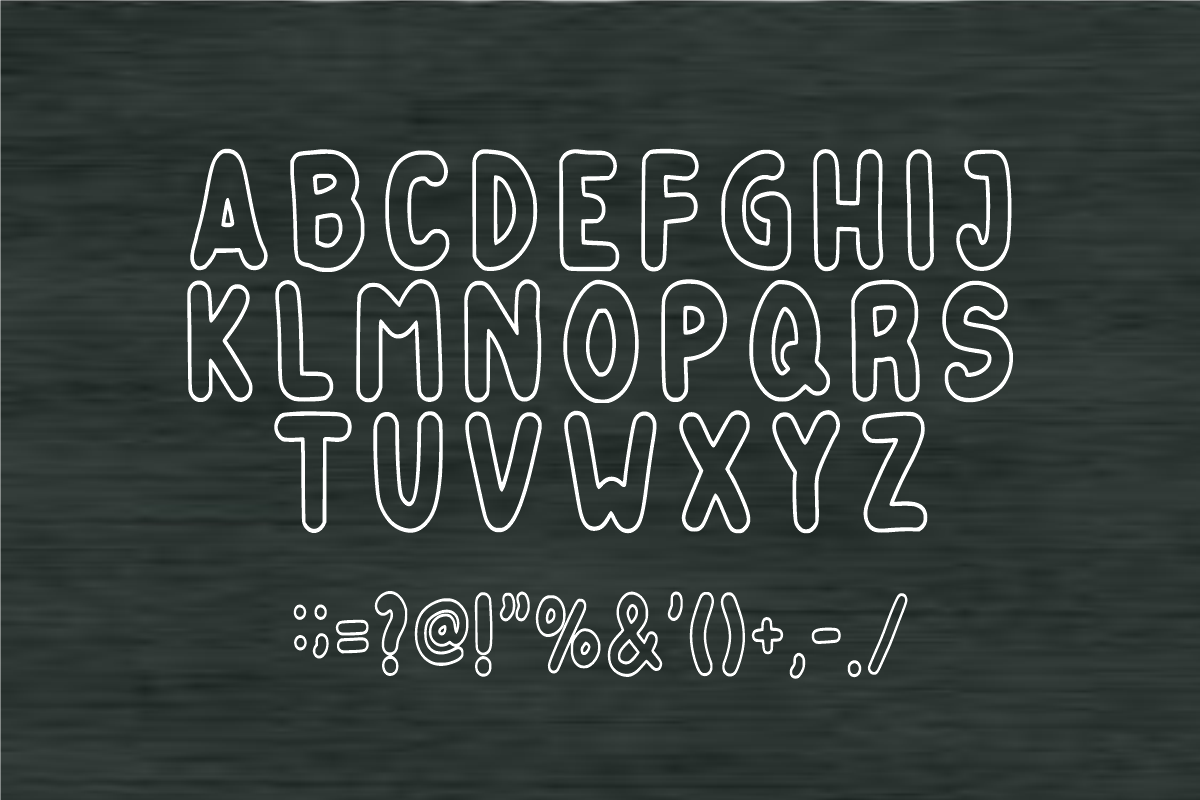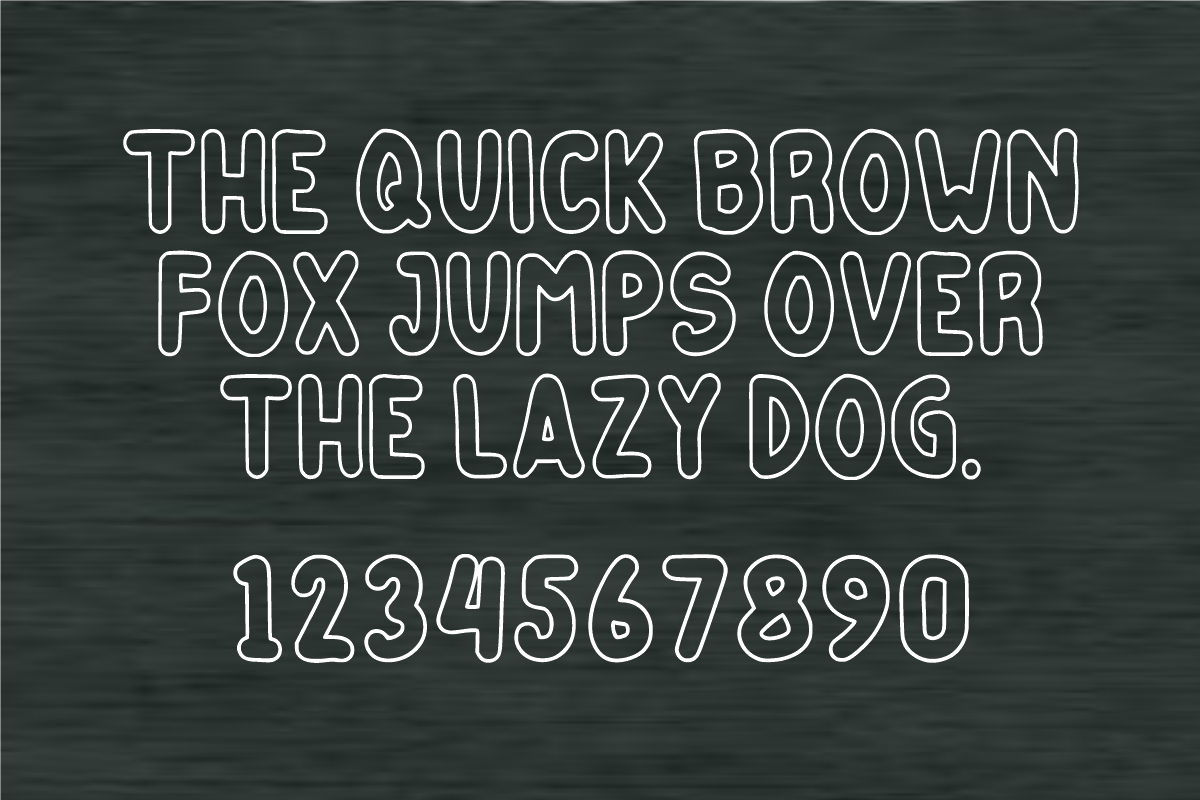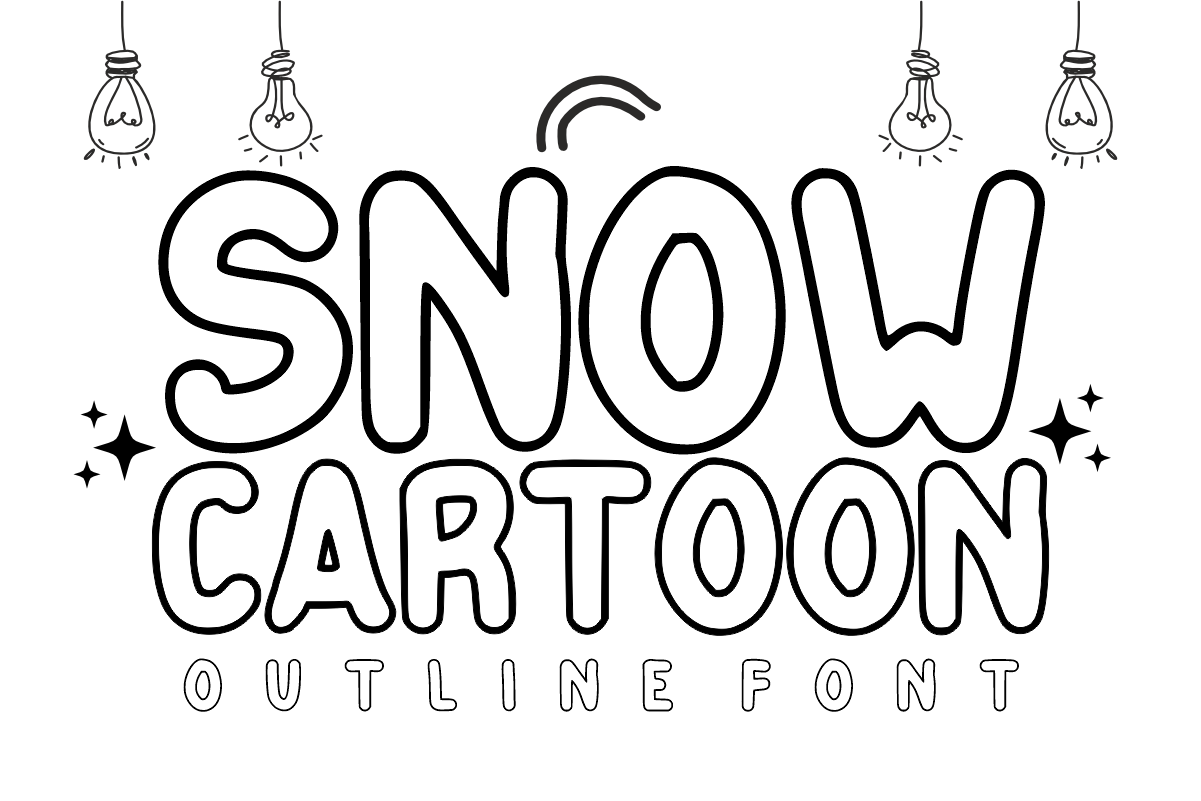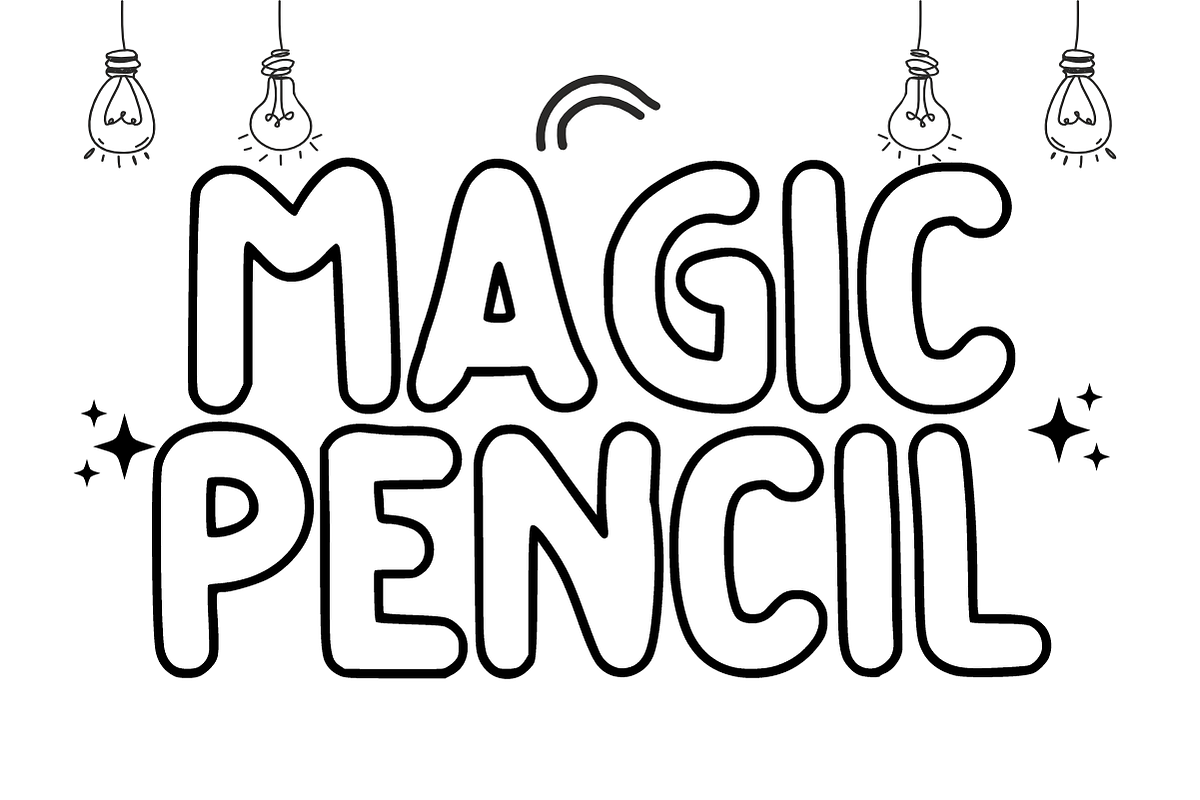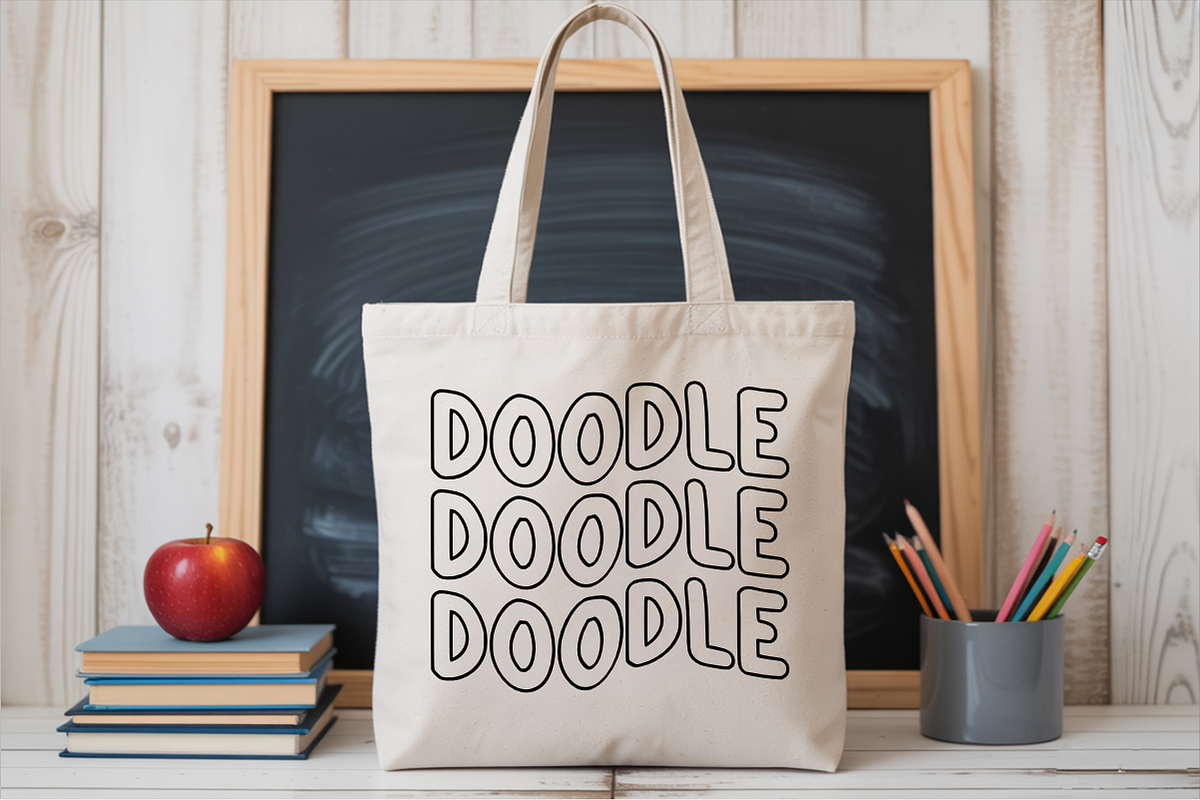
Snow Cartoon - Playful Outline Font
Snow Cartoon is a bold, playful display font featuring a bubbly cartoon style with a clean outline design. Brimming with friendly and cheerful energy, this hollow bubble font is perfect for children's coloring books, classroom activities, custom stickers, and whimsical crafting layouts. Every character features crisp, smooth vector lines, ensuring easy weeding and flawless cutting on Cricut and Silhouette machines.
Uppercase Character Set
Numbers & Basic Punctuation
Ideal For:
Children's coloring books, activity sheets, and educational worksheets
Classroom decorations, school posters, and teacher resources
Custom die-cut stickers, labels, and vibrant planner decals
Kids' apparel, birthday party shirts, and playful merchandise
Whimsical business branding, toy packaging, and cheerful logos
Cricut, Silhouette, and DIY vinyl crafting projects